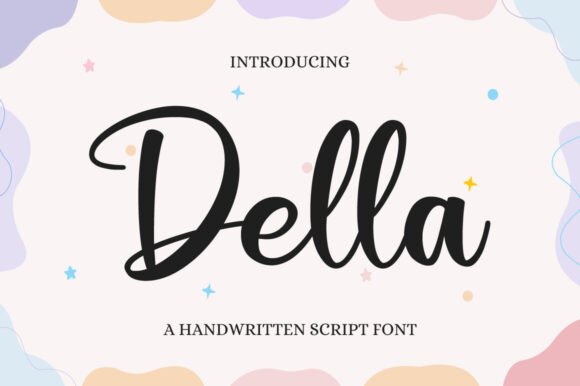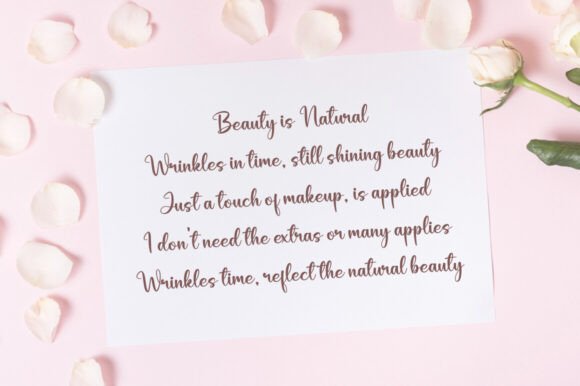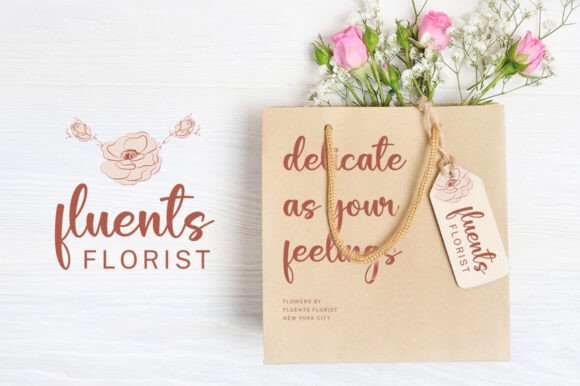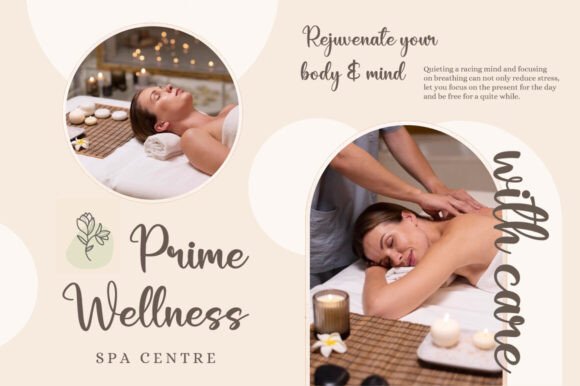
Della Font
About the Della Font
From logos to headlines, the Della Font is the perfect choice for making a lasting impression. Della is a lovely and timeless handwritten font. It is the best choice for creating eye-catching logos, branding, and quotes.
Della’s elegant, slightly informal handwritten style makes it ideal for branding projects requiring a touch of personal warmth, particularly logos, short headlines, and social media graphics. It also works well on invitations and packaging for products emphasizing artisanal quality or handcrafted details. However, its less-structured nature makes it unsuitable for body text or lengthy passages; legibility suffers at smaller sizes.
Consider pairing Della with a clean sans-serif like Montserrat for a balanced contrast, or a classic serif like Garamond for a more traditional feel. For a more modern aesthetic, a geometric sans-serif such as Futura could work well. Avoid pairing with other script fonts, as this would create visual clutter.
Della projects a friendly yet sophisticated personality, conveying approachability and a sense of timeless quality. It’s best suited to brands that value authenticity and craftsmanship, perhaps in the food, beverage, fashion, or lifestyle sectors.
Della Font Usage Examples